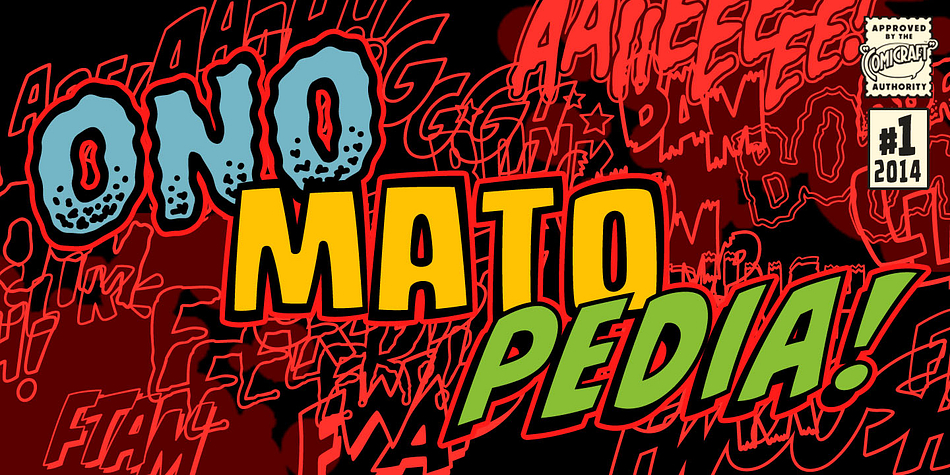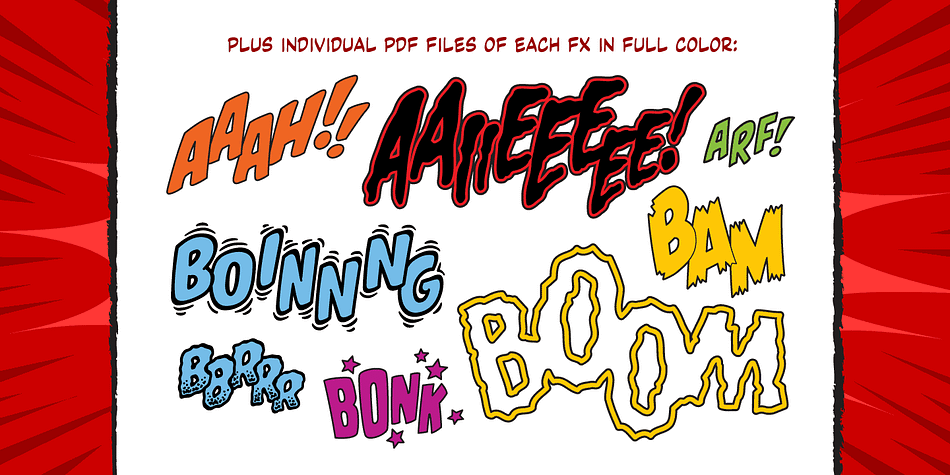
Designed by John Roshell, Onomatopedia is a dingbat font family. This typeface has two styles and was published by Comicraft.
Fans of Comicraft have made a lot of noise (HELP!) about the availability of ready-to-wear, factory surplus sound effects, not unlike those made available over a decade ago in our extremely popular and raucous ZAP PACK. It may sound impossible (WHA—?!), but Comicraft’s Sonic Specialist, John JG Roshell, locked himself away (CLIK) in our top-secret SFX lab forming Onomatopoeia at high speeds (FWOOSH) and extreme temperatures (BBRRR), and sounded out over One Hundred (GASP) of the loudest (BTOOM), most intense (UNNGHH), squawkiest (KRAKK), discordant (SPLANGG), dissonant (SQUTCH)—as well as dulcet and restrained (THWIPP)—sound effects ever conceived (WOO HOO!)
Helpfully arranged in alphabetical order (YIPPEE!), this Library of Onomatopeia – the ONOMATOPEDIA, if you will (DING)—is now available for use by the general public.
WARNING: Comicraft Sound Effects may explode on contact with skin (AAAH!); please use protective clothing and eyewear when handling the Onomatopedia.
Two fonts (Source & Echo) containing 104 pre-made sound effects. Also available is a glyph map of all 104 effects as a PNG file in the Gallery.